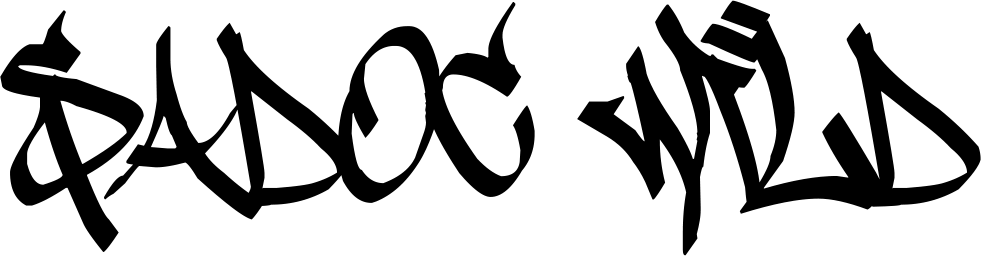
Sadoc Wild Font
You can make your work distinct from others just by giving your work some artistic and natural elements with a graffiti font. Here, Sadoc Wild font would be perfect for logos, signs, and book covers with its urban effect…
You can make your work distinct from others just by giving your work some artistic and natural elements with a graffiti font. Here, Sadoc Wild font would be perfect for logos, signs, and book covers with its urban effects, isn’t it?
Although it does not support lowercase letters, numbers, and punctuation, be sure it would be able to meet your writing needs through different sets of uppercase letters. By the way, the readability of this font may be difficult.
Sadoc Wild, a wild graffiti typeface, made with a marker.